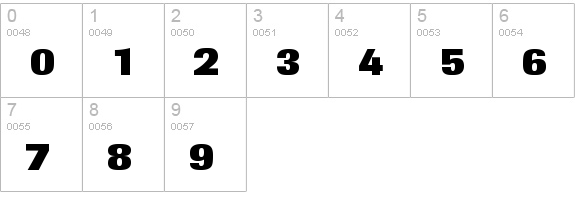
Berthold Imago Extra Bold Font Details
Berthold Imago Extra Bold is a strong, high-contrast variant in the Berthold typeface family \xE2\x80\x94 well suited to headlines, attention-grabbing titles, and strong calls-to-action.
Berthold Imago Extra Bold font is a striking and bold typeface that demands attention. With its robust and commanding presence, this font is perfect for making a statement in any design project. Its strong and sturdy letterforms exude confidence and power, making it ideal for headlines, logos, and branding materials. The Berthold Imago Extra Bold font features a unique blend of sharp edges and smooth curves, giving it a modern and contemporary feel. Its thick strokes and generous spacing ensure maximum readability, even at smaller sizes. Whether used in print or digital media, this font will make a lasting impression on your audience. What makes Berthold Imago Extra Bold font even more remarkable is that it is freely available to download at FontsMarket.com. This means that you can enjoy the benefits of this exceptional typeface without any cost. With just a few clicks, you can add this impressive font to your collection and start incorporating it into your designs immediately. Whether you are a professional designer or a casual enthusiast, Berthold Imago Extra Bold font is a valuable asset that should not be overlooked. Its versatility and impact make it a go-to choice for a wide range of design applications. So don't miss out on the opportunity to enhance your projects with this extraordinary font – head over to FontsMarket.com and get your hands on Berthold Imago Extra Bold today.